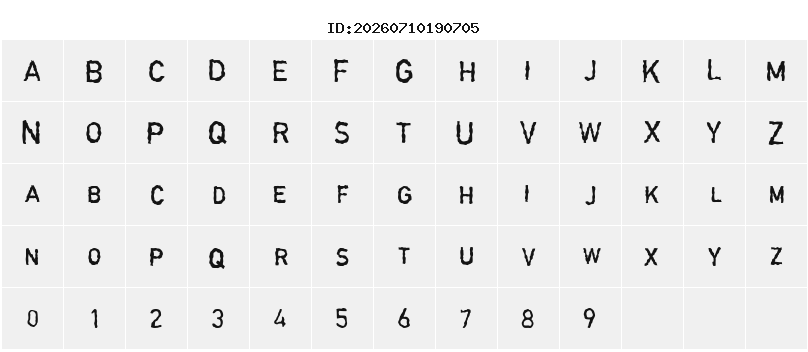
Garbageschrift Preview
• Font Name: Garbageschrift
• Font Style: Thin
• Full Font Name: Garbageschrift Thin
About Garbageschrift.ttf
Garbageschrift.ttf is a modern, elegant sans-serif font designed for ultimate readability and visual harmony. Perfect for branding, headlines, web design, and print materials.